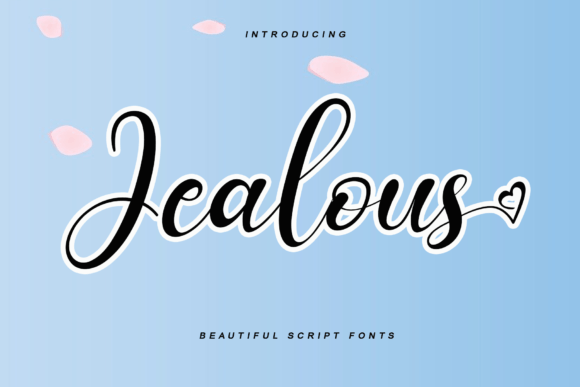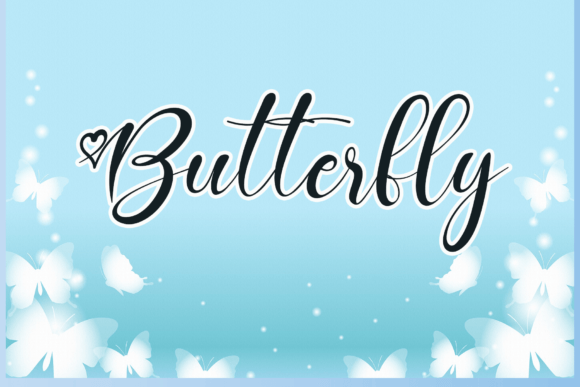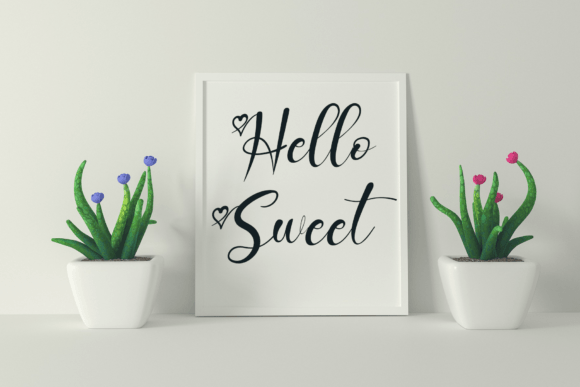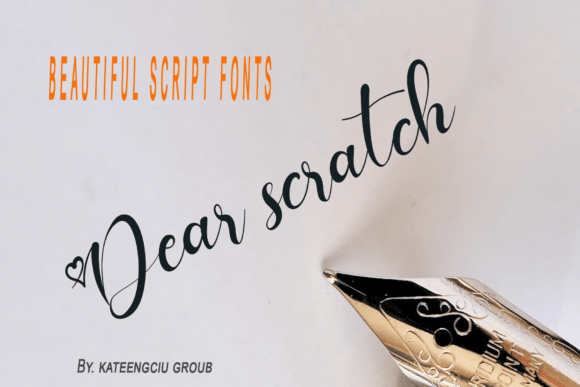
Jealous Font
About the Jealous Font
Discover the charm of Jealous Font. This font is a perfect blend of modern aesthetics and classic appeal. Jealous is a fancy handwritten font. With bold contrast strokes and fun characters, it will enhance your creativity. It is perfect for logo design, social media, movie titles, book titles, and many more. Make stunning work with Jealous font!
Jealous excels in applications requiring a bold, playful statement. Ideal uses include headlines, short text blocks on posters or social media graphics, and branding for products targeting a younger, more expressive demographic. Its strong contrast and hand-drawn feel make it less suitable for body text or UI elements where readability over long stretches is crucial.
Pairing Jealous with a clean sans-serif like Open Sans for body copy creates a balanced contrast between playful display and easily readable text. Alternatively, a classic serif such as Garamond could provide a sophisticated counterpoint, adding a touch of elegance to the overall design. Avoid pairing it with other highly decorative scripts, as this would create visual clutter.
The font’s core personality is energetic and expressive, conveying a sense of youthful exuberance and fun. Brands focused on creativity, entertainment, or fashion would find Jealous a strong visual asset.
Jealous Font Usage Examples
Jealous Font Example